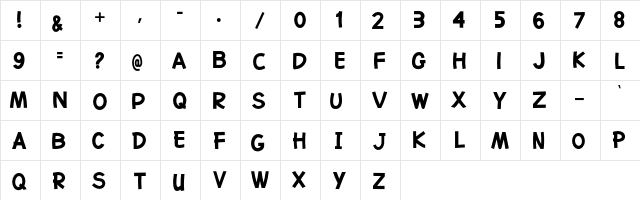
Go Bear Regular
| Foundry | Polah |
| Designer | Polah |
Design Context for Go Bear Typeface
Go Bear offers clean, dependable letterforms without strong stylistic allegiance, making it a practical choice for designers who need flexibility.